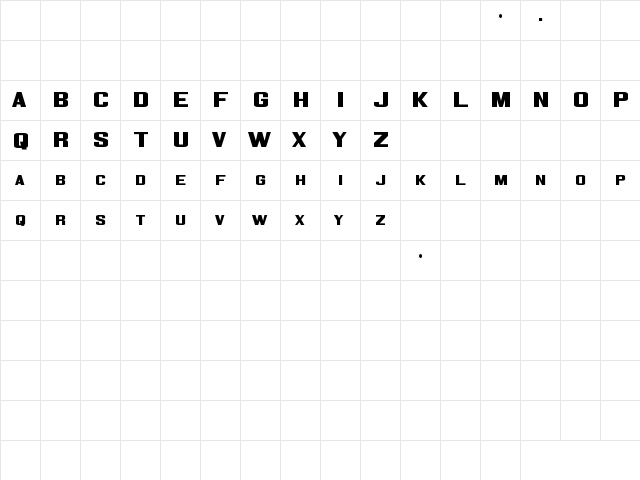
Corporate HQ Regular Font Preview
Corporate HQ Regular
Corporate HQ Regular Font Details
Design Context for Corporate HQ Typeface
Corporate HQ offers clean, dependable letterforms without strong stylistic allegiance, making it a practical choice for designers who need flexibility.